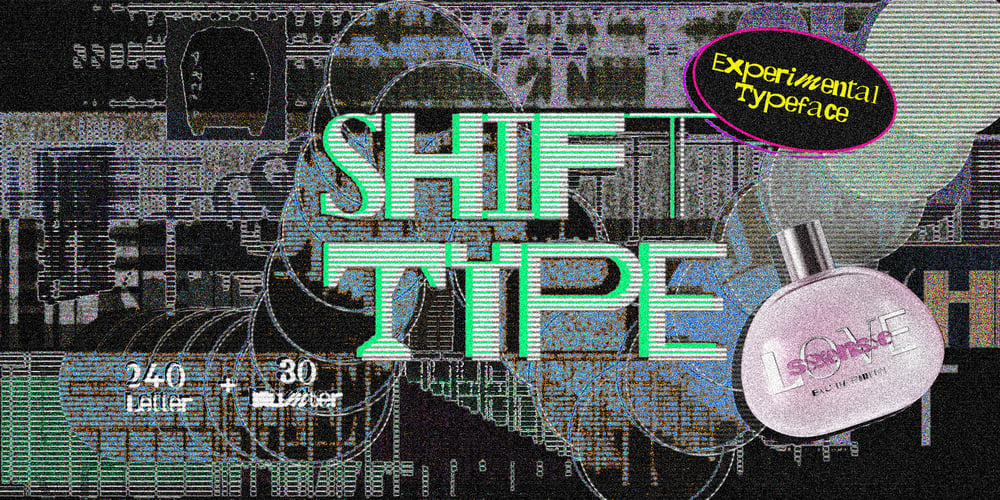
Shifttype Font Family was designed by Ali Güzel and published by Ali Güzel. Shifttype contains 1 styles and family package options. An experimental typeface with at least 3 characters each, uppercase, lowercase, numbers, and punctuation marks. It would be great for experimenting with different typefaces to decide what’s the general taste of your logo or designing a poster, music cover, etc. Or just use the typeface with exploring its alternate glyphs, enjoy!